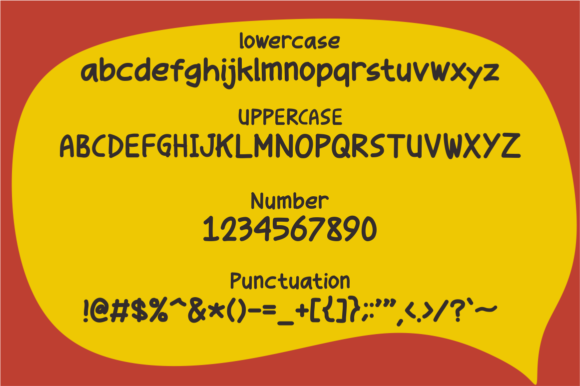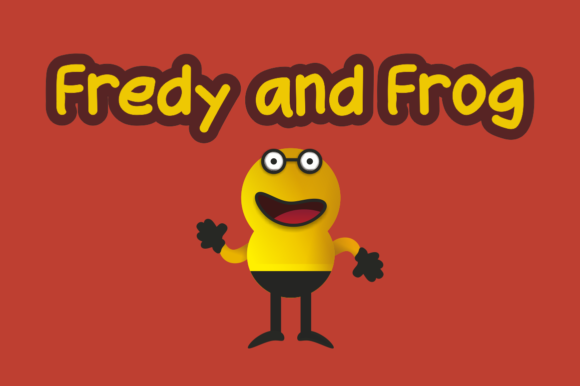
Parenda Pop Comic Font
db-ku.com - Script & Handwritten -- Parenda Pop Comic is a joyful and cheerful handwritten font. This font is natural and unique. It will look great on a variety of design ideas, such as food, beverages, and comic strips.